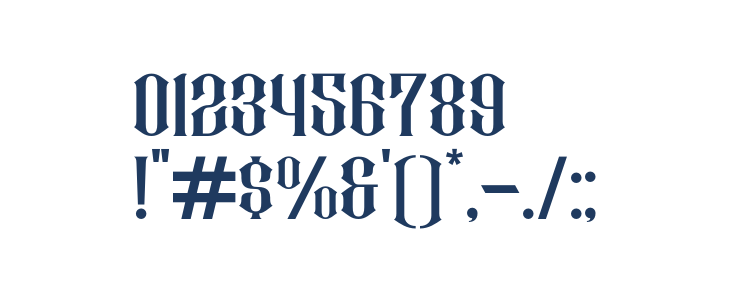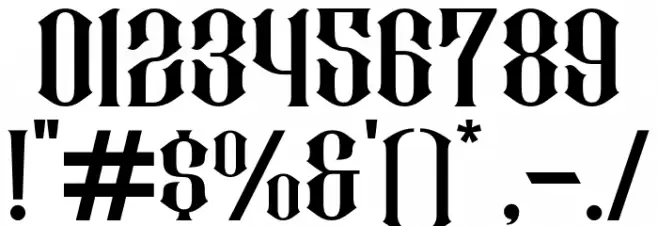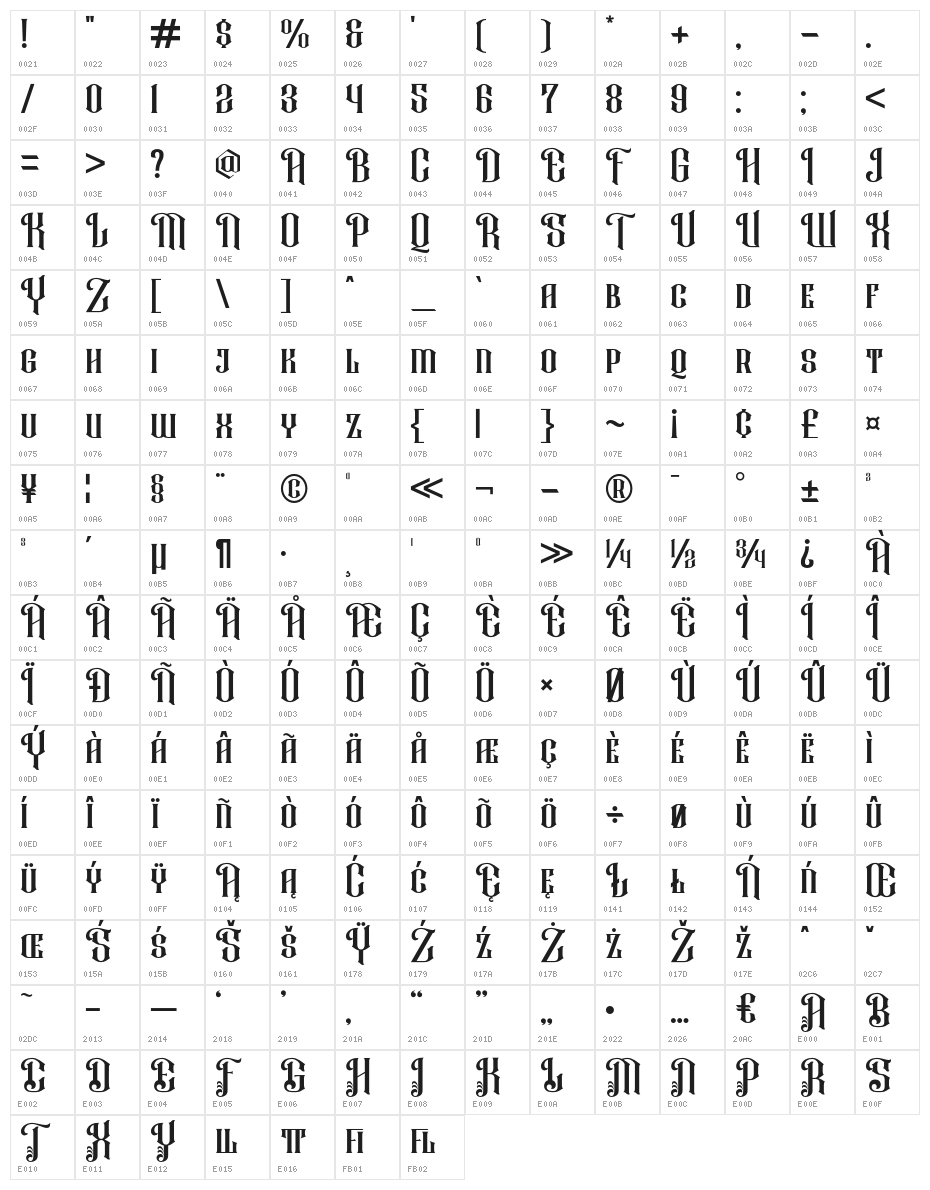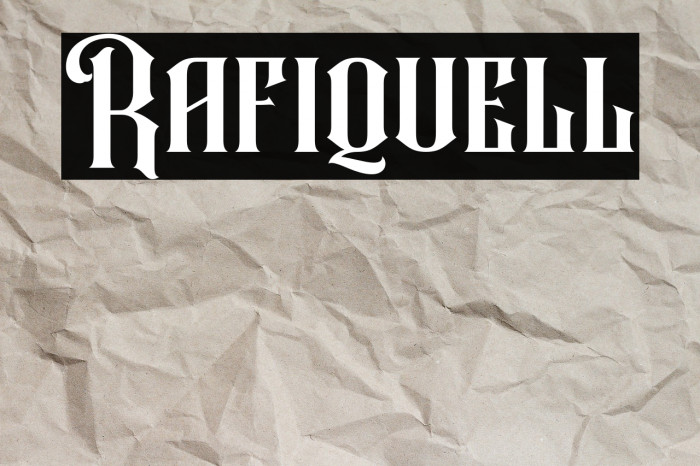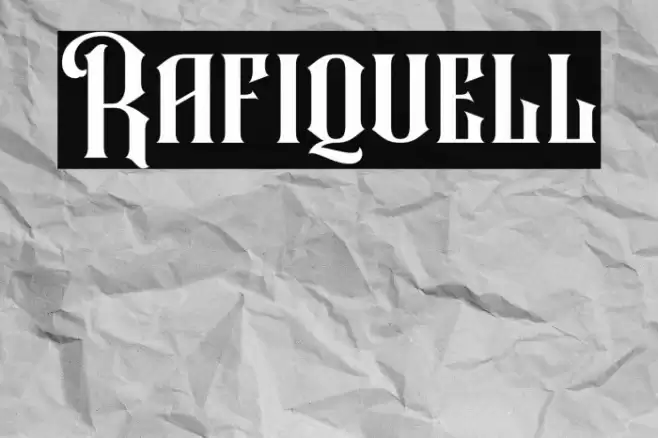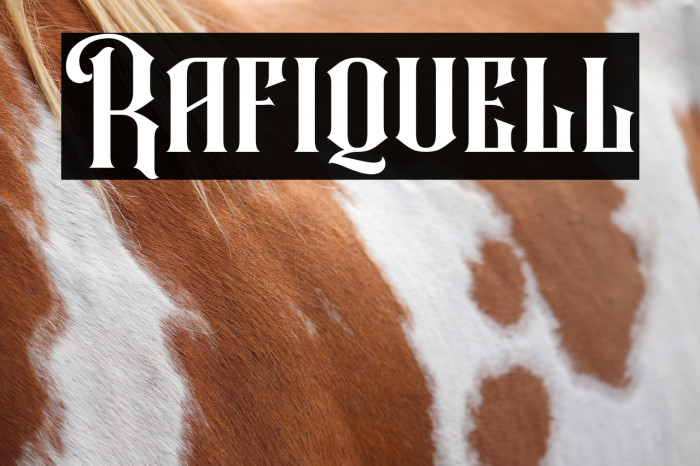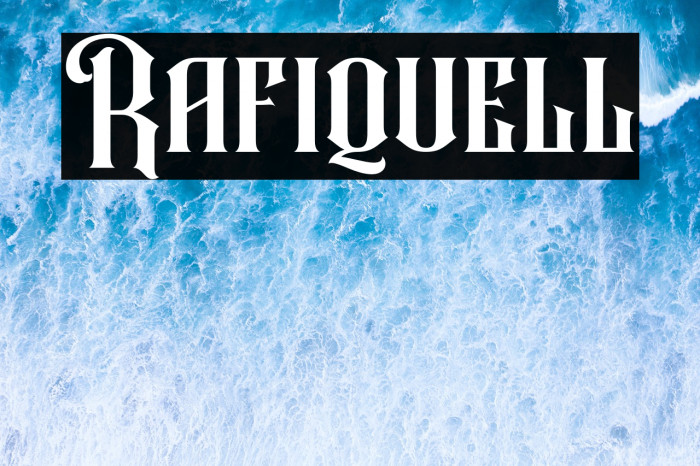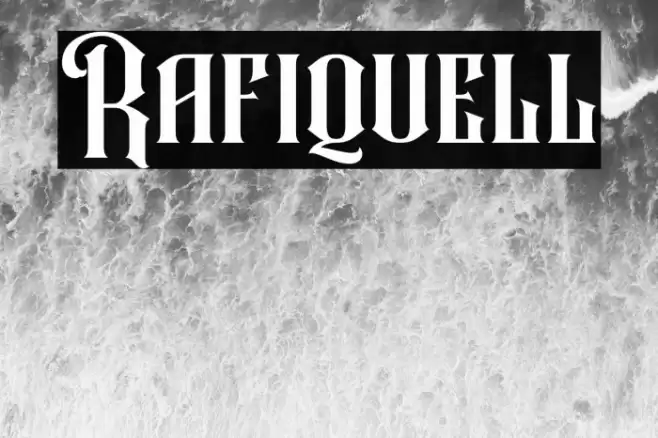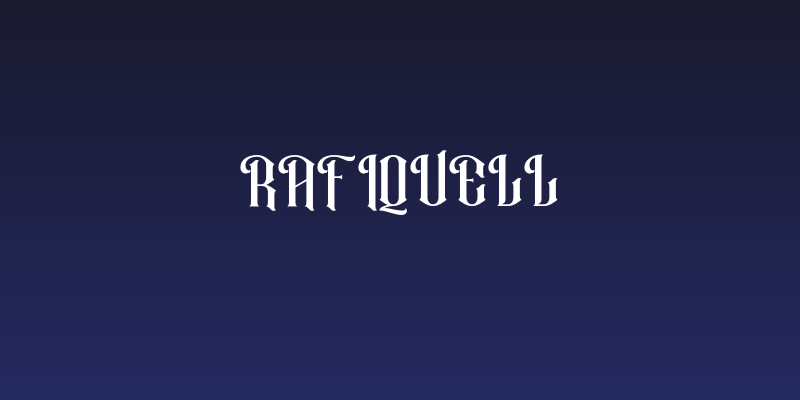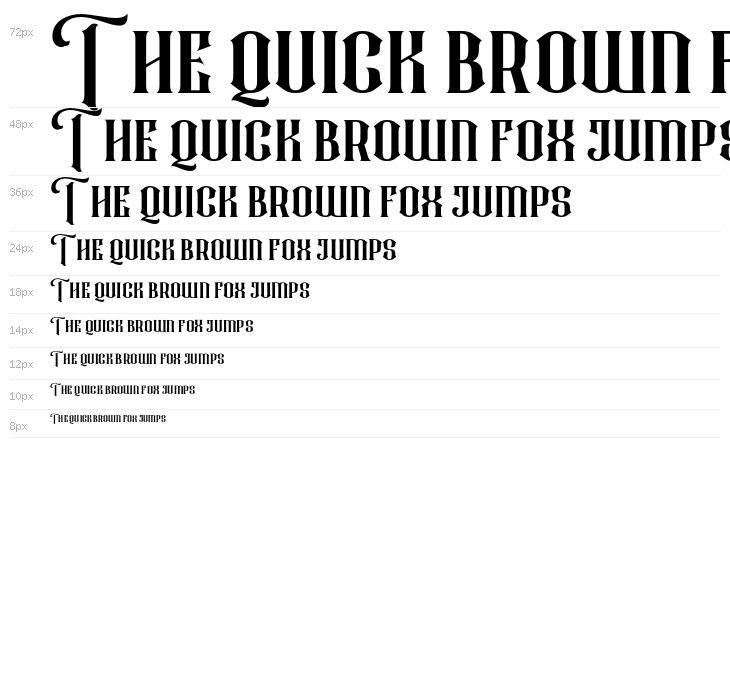
Rafiquell Font
Rafiquell Description
This font features a bold and striking design with a strong blackletter influence, characterized by its sharp, angular lines and dramatic flourishes. The uppercase letters are particularly ornate, with intricate details that give them a gothic appearance. The lowercase letters maintain a consistent style, complementing the uppercase with their own unique flair. Numbers and special characters are designed to match the overall aesthetic, ensuring a cohesive look across all text. The font's boldness and decorative elements make it ideal for creating eye-catching headlines or logos that demand attention.